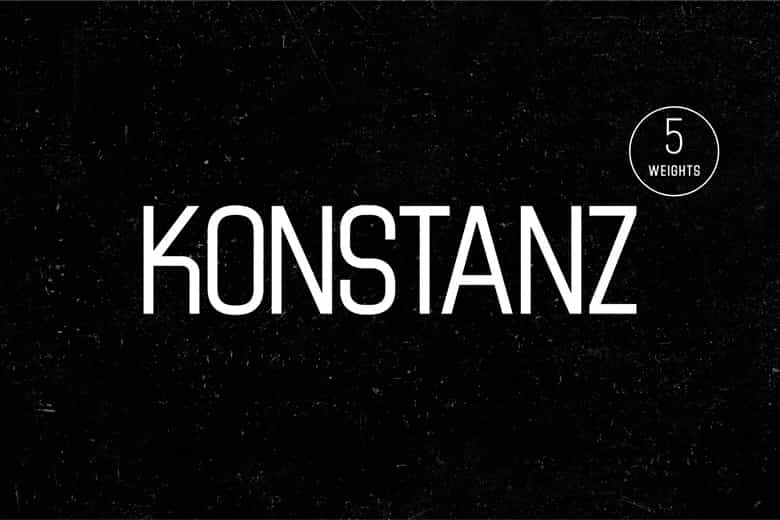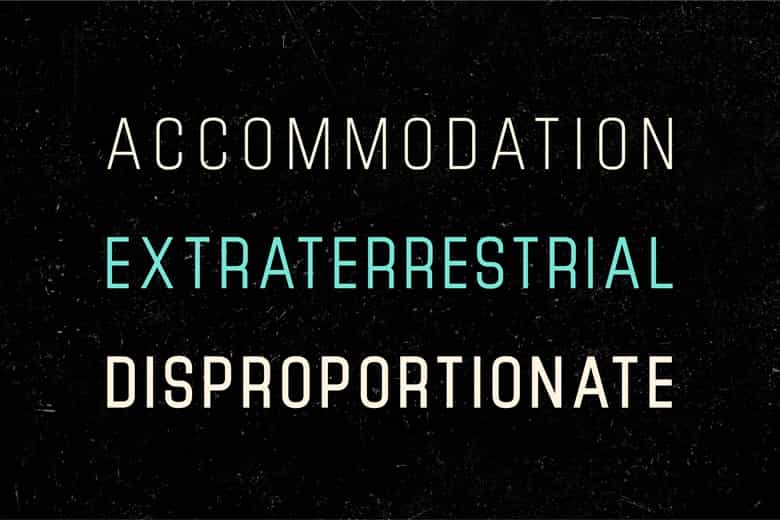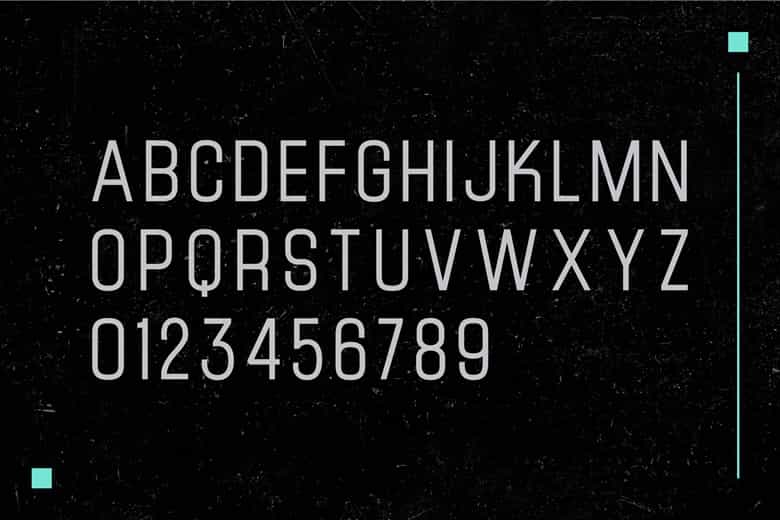
Meet Konstanz is a product of great work and design, it is sans serif font family representing this new contemporary style and design. With 5 different styles, it perfects the odyssey for a seamless transition between a variety of project types including magazines, logos, film titles and everything in between. Laid out with elements of accuracy and neatness.